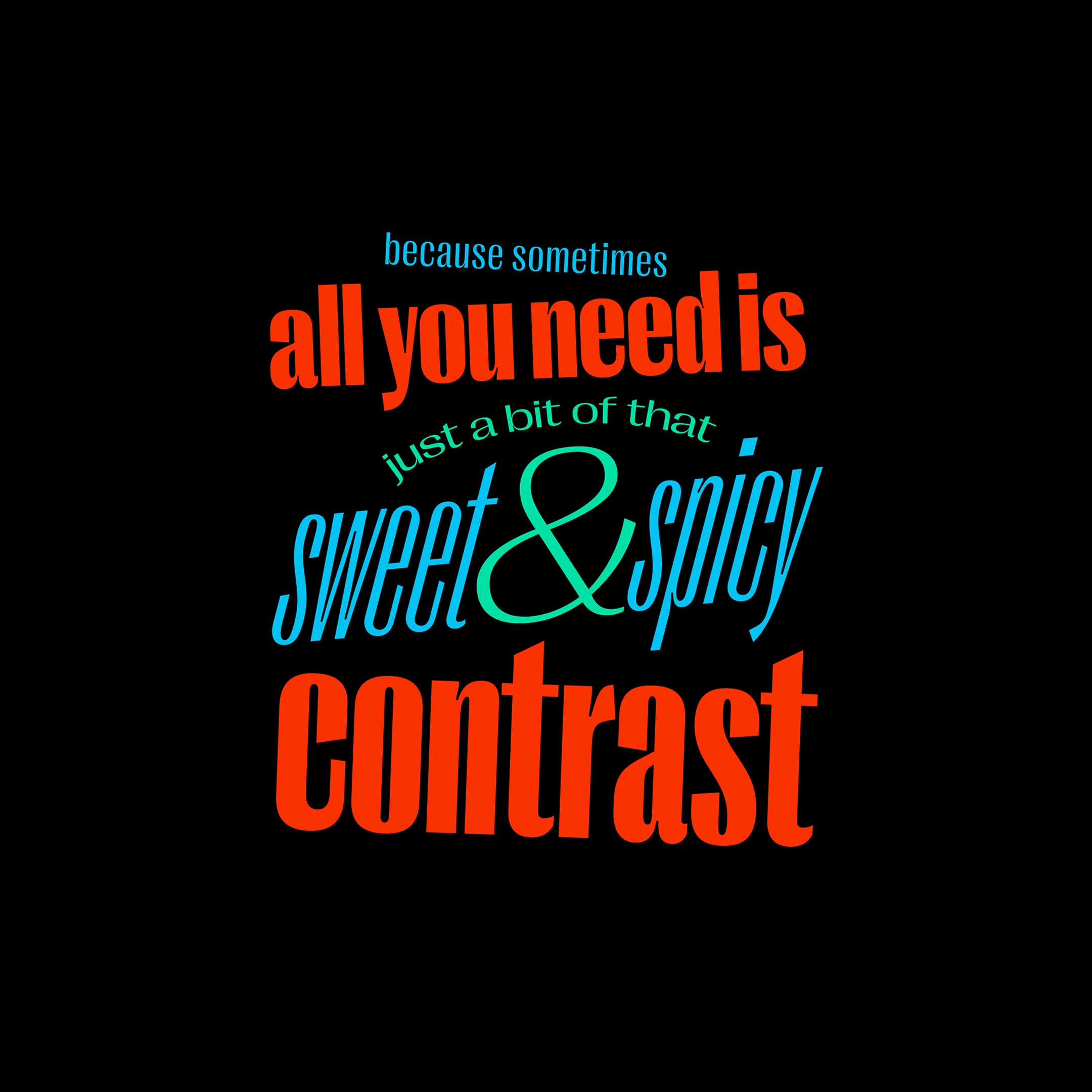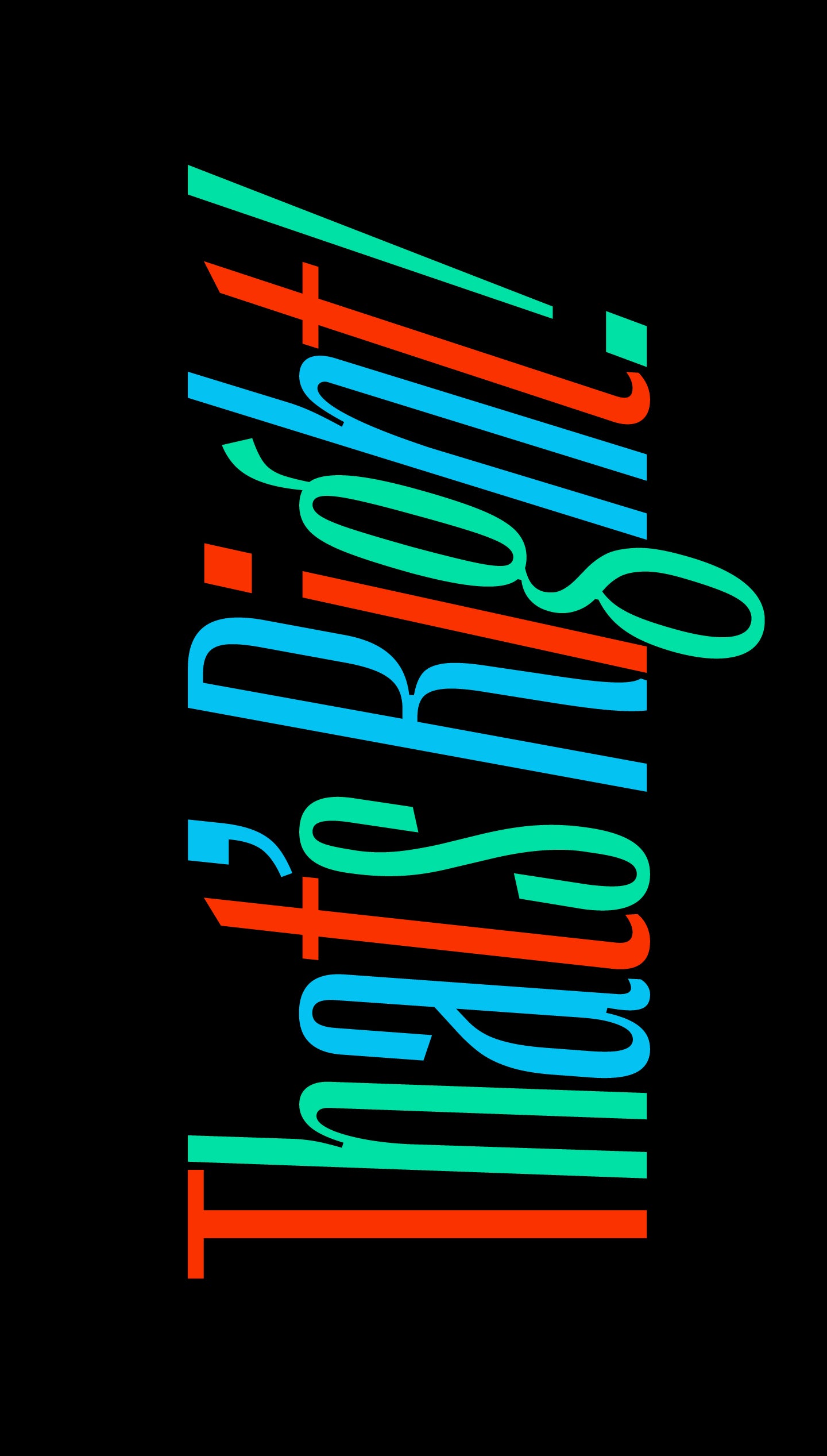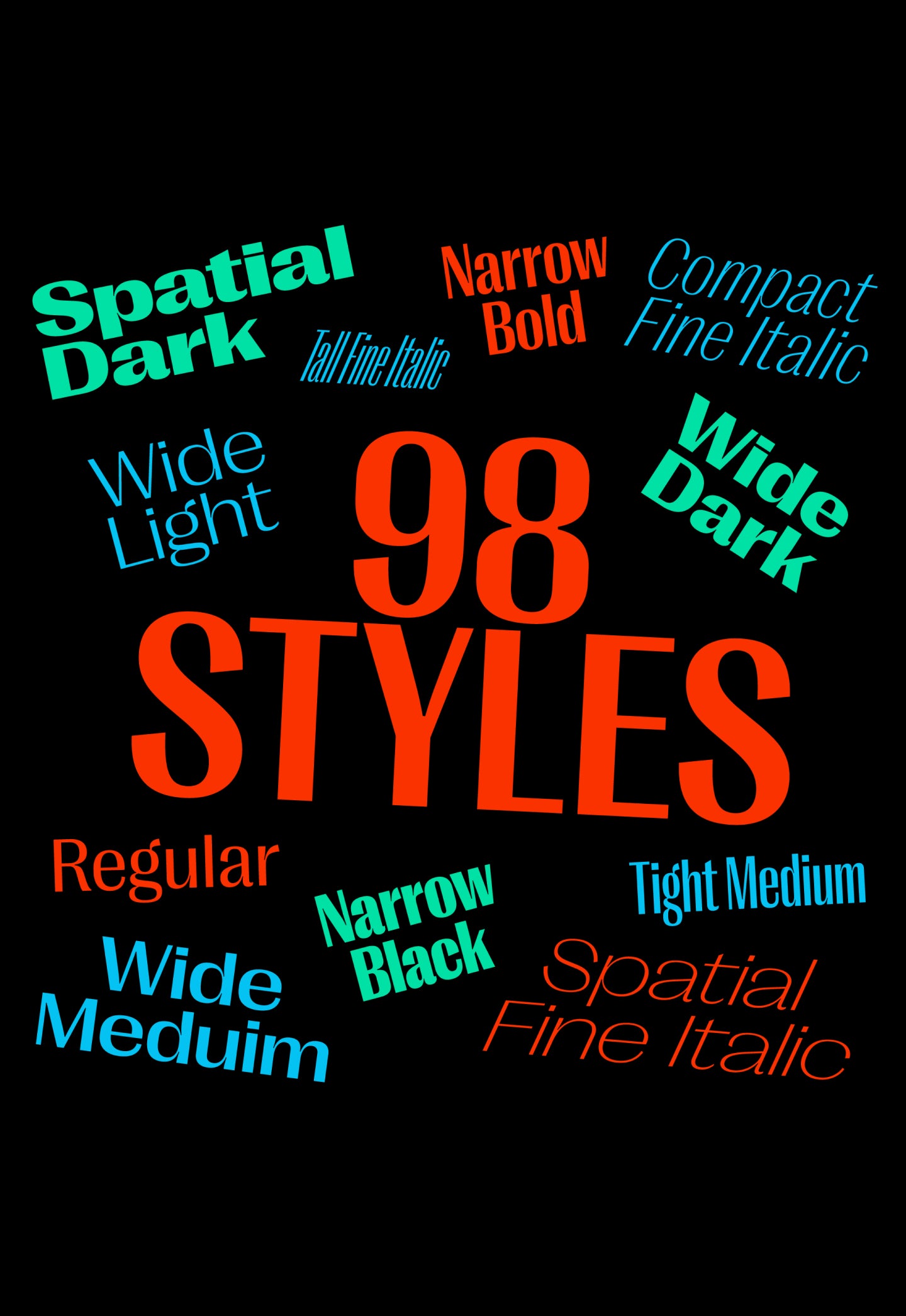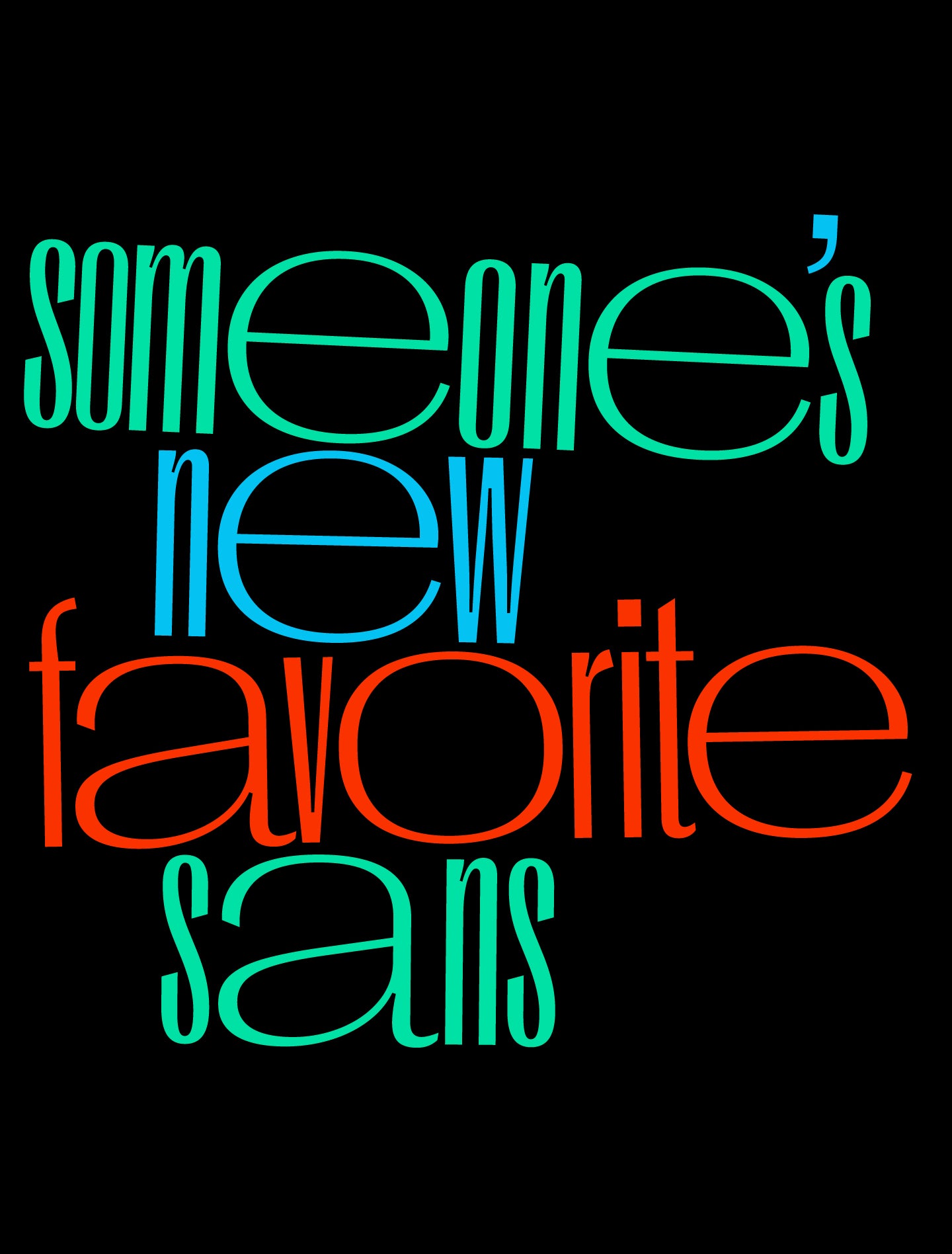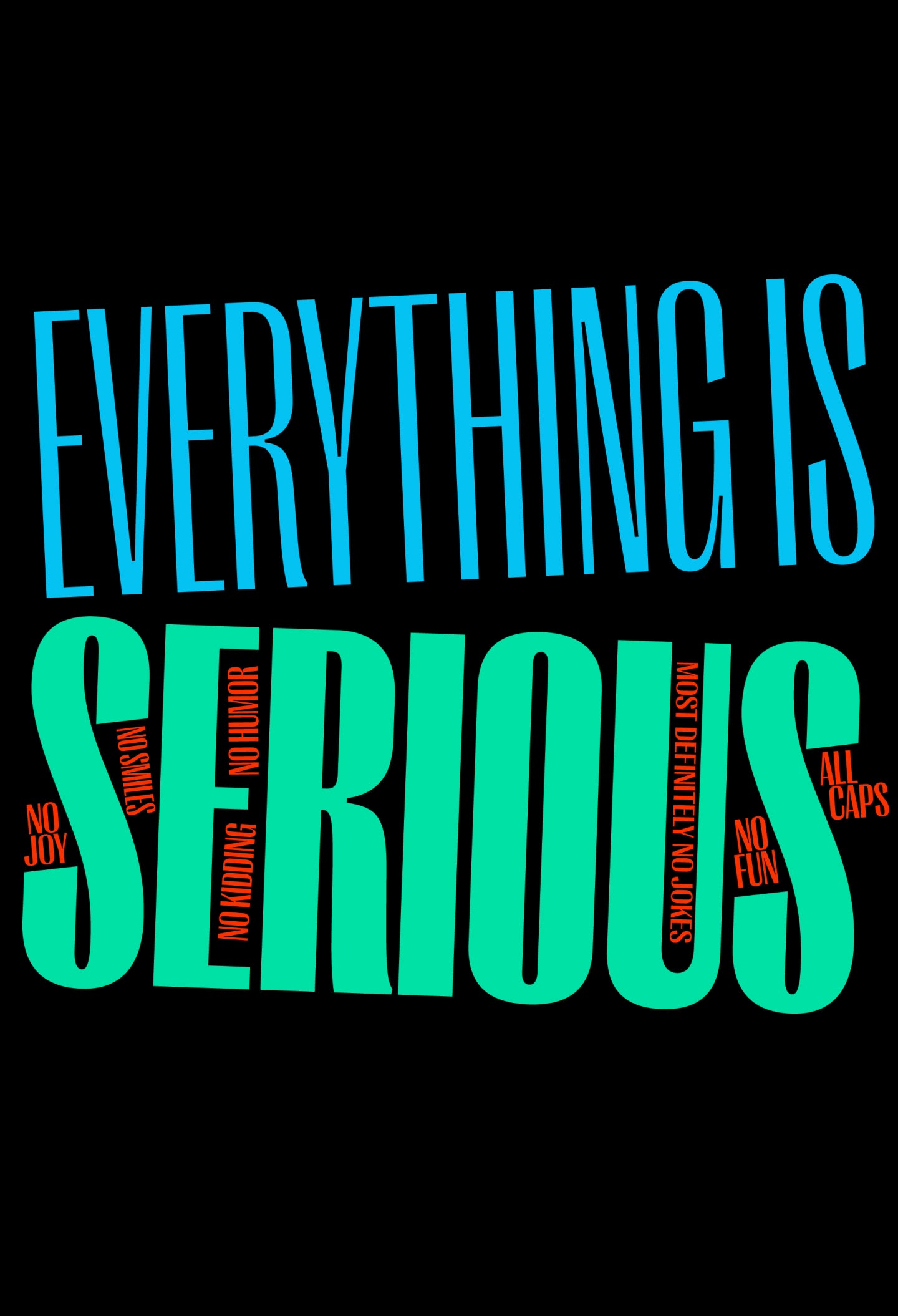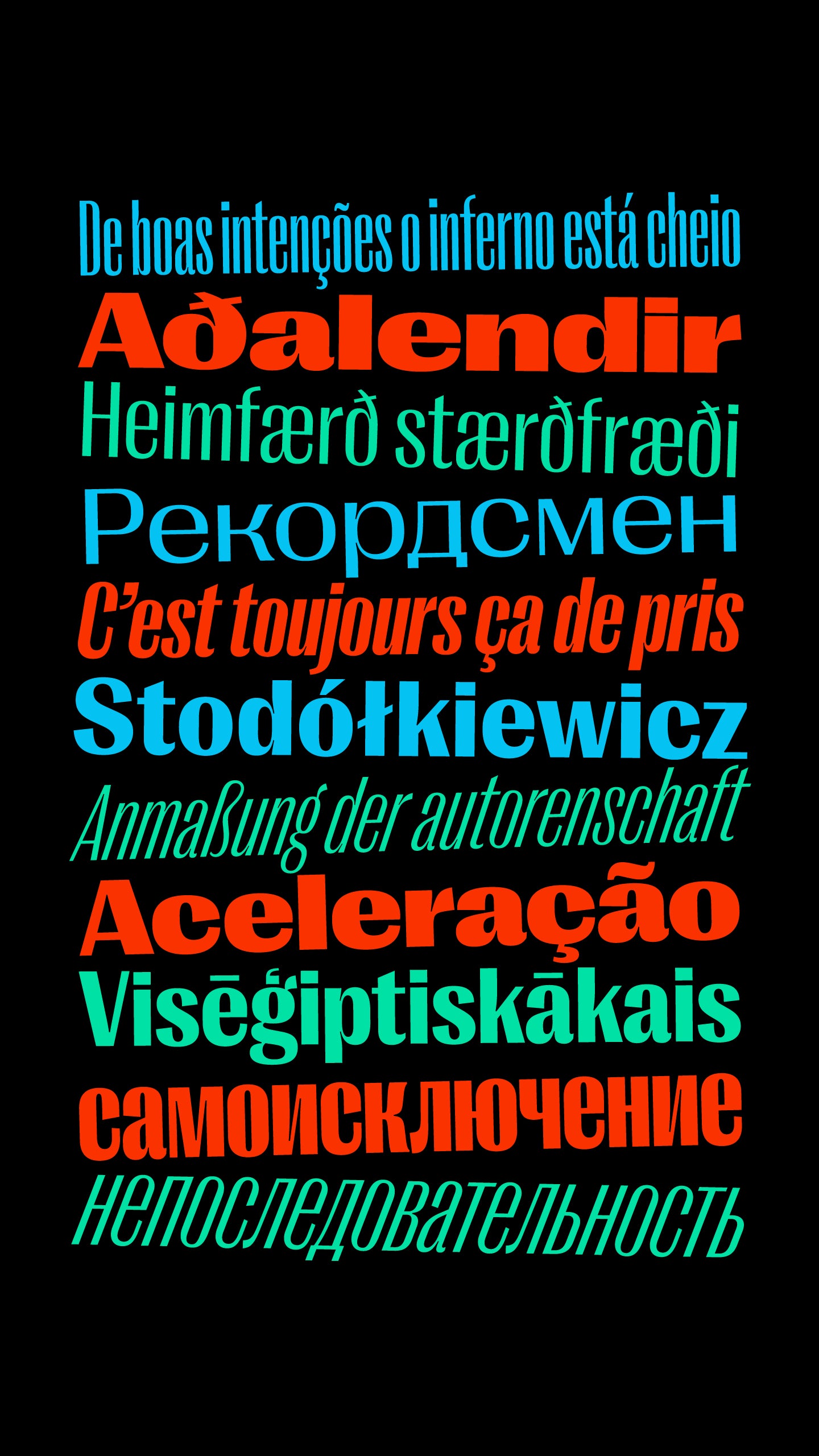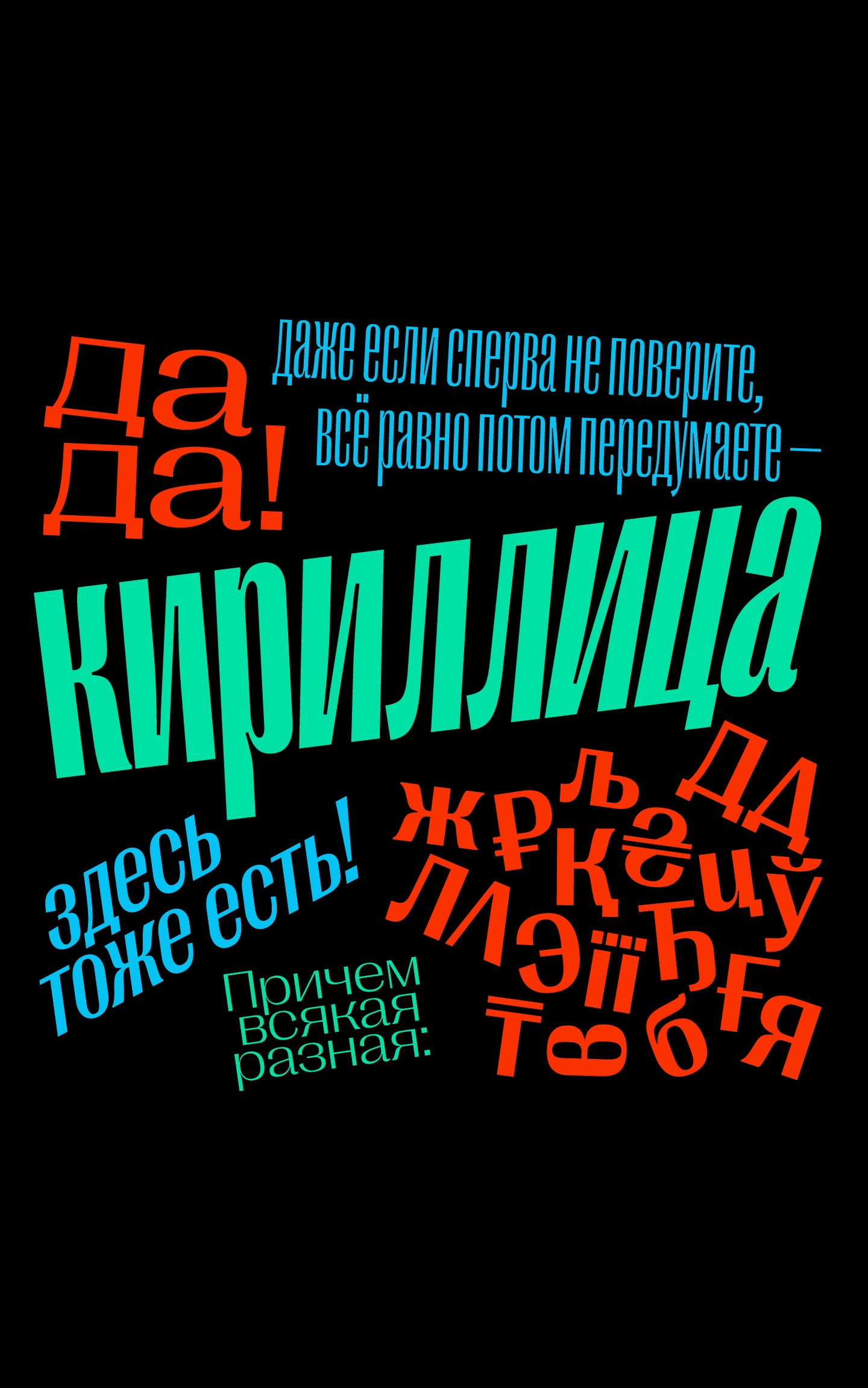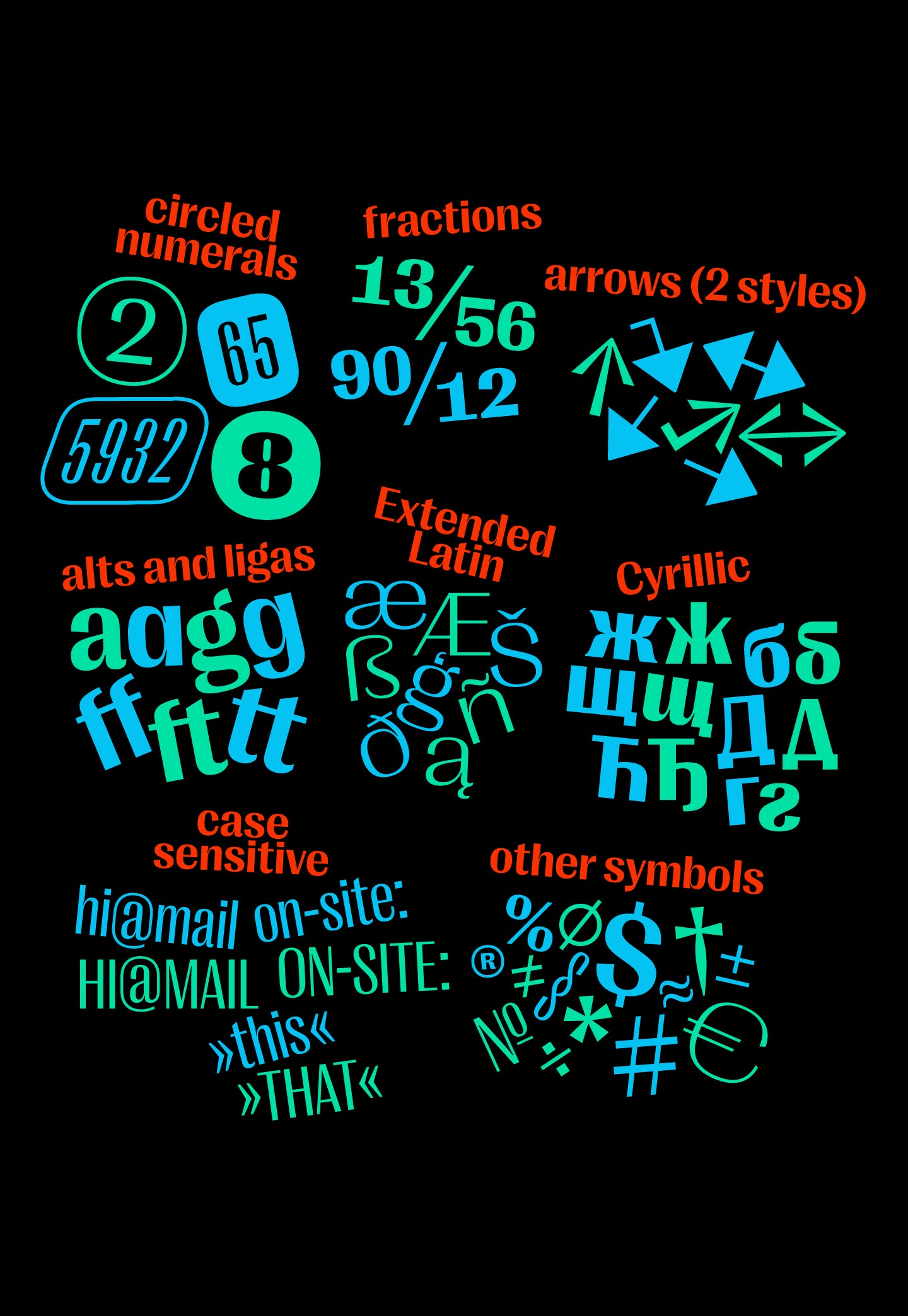
Right Gothic
Right Gothic is what happens when a sans serif remembers its roots—and decides to evolve them with style.
Sharp contrast. Smooth moves.
Right Gothic is a large multi-purpose variable type family. Its unique voice is based on the distinct details, smooth ink traps, contemporary feel, yet overall familiar letterforms. While most modern sans serif fonts (such as Right Grotesk) have low contrast between thick and thin strokes, Right Gothic takes a step back towards serif anatomy and features a clearly pronounced contrast. The word “Gothic” in its name refers to the genre of early pre-Swiss sans typefaces, which often were sort of “serif without serifs”.
The family covers all useful weights and widths, 98 styles in total: 7 weights × 7 widths × 20° Italics. The power of variable fonts is now more affordable! Each sub-family goes with a Mini Variable Font covering the same range. Custom range, including adjustable contrast axis upon request! Cool, Right?
7 Display Cuts (98 Styles Total) with 794 Glyphs each
Including Cyrillic Support